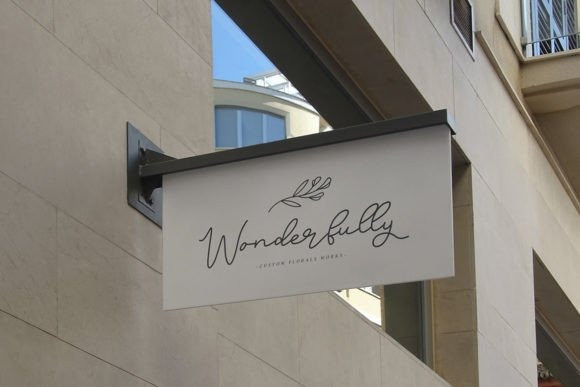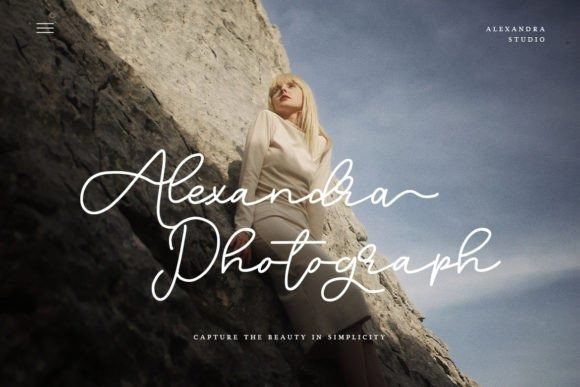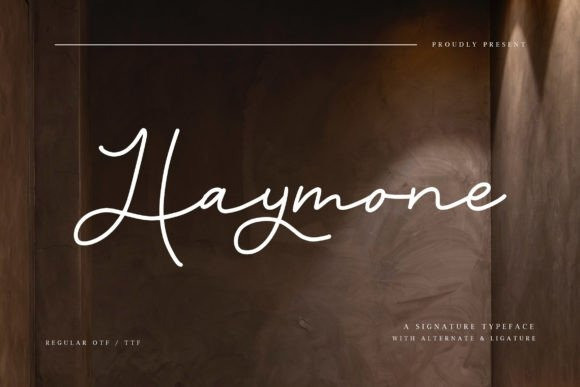
Haymone Font
Haymone Handwritten Font has an authentic signature style that will take your projects to another level. It’s perfect for logos, products packaging and wedding invitations. This font is PUA encoded which means you can access all of the glyphs and swashes with ease!